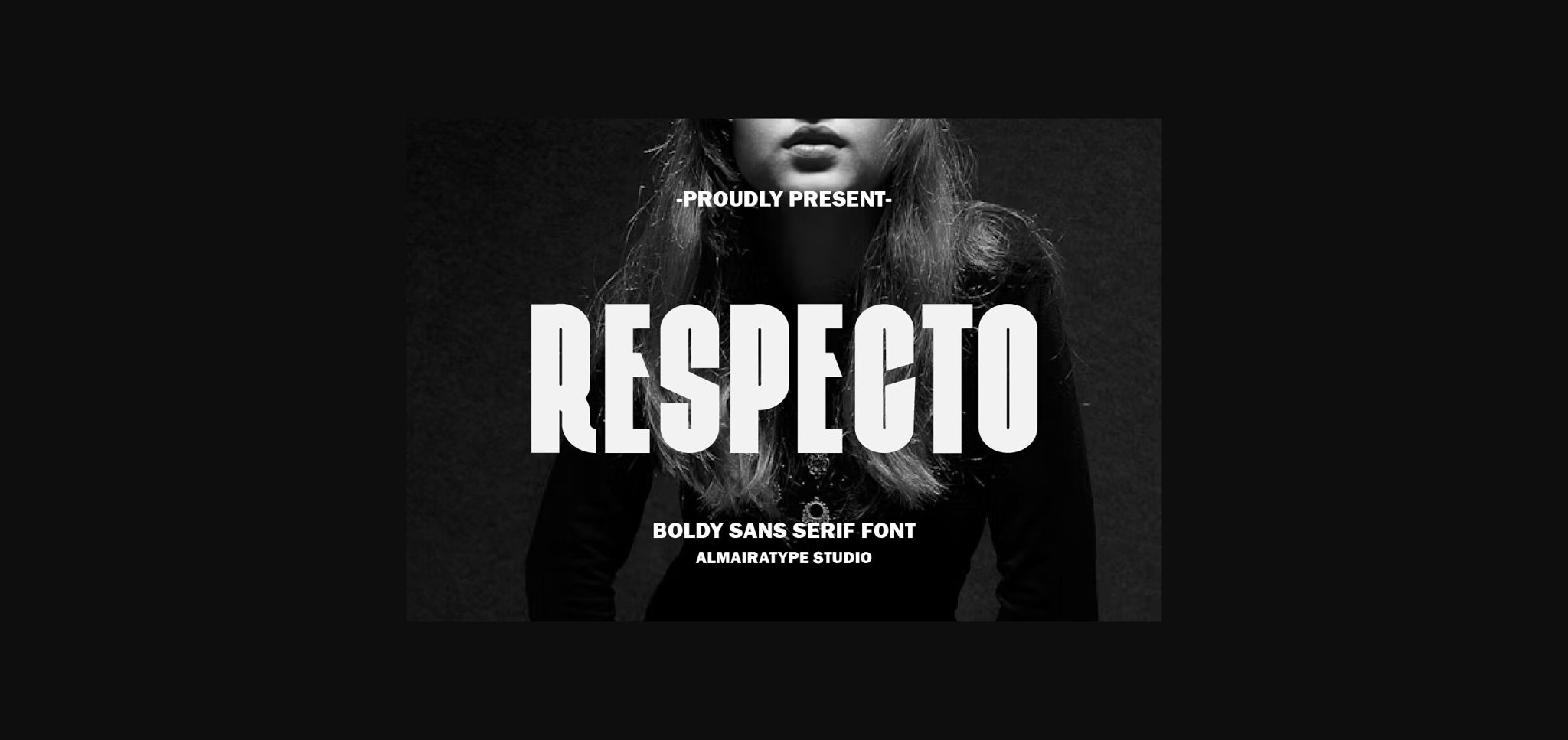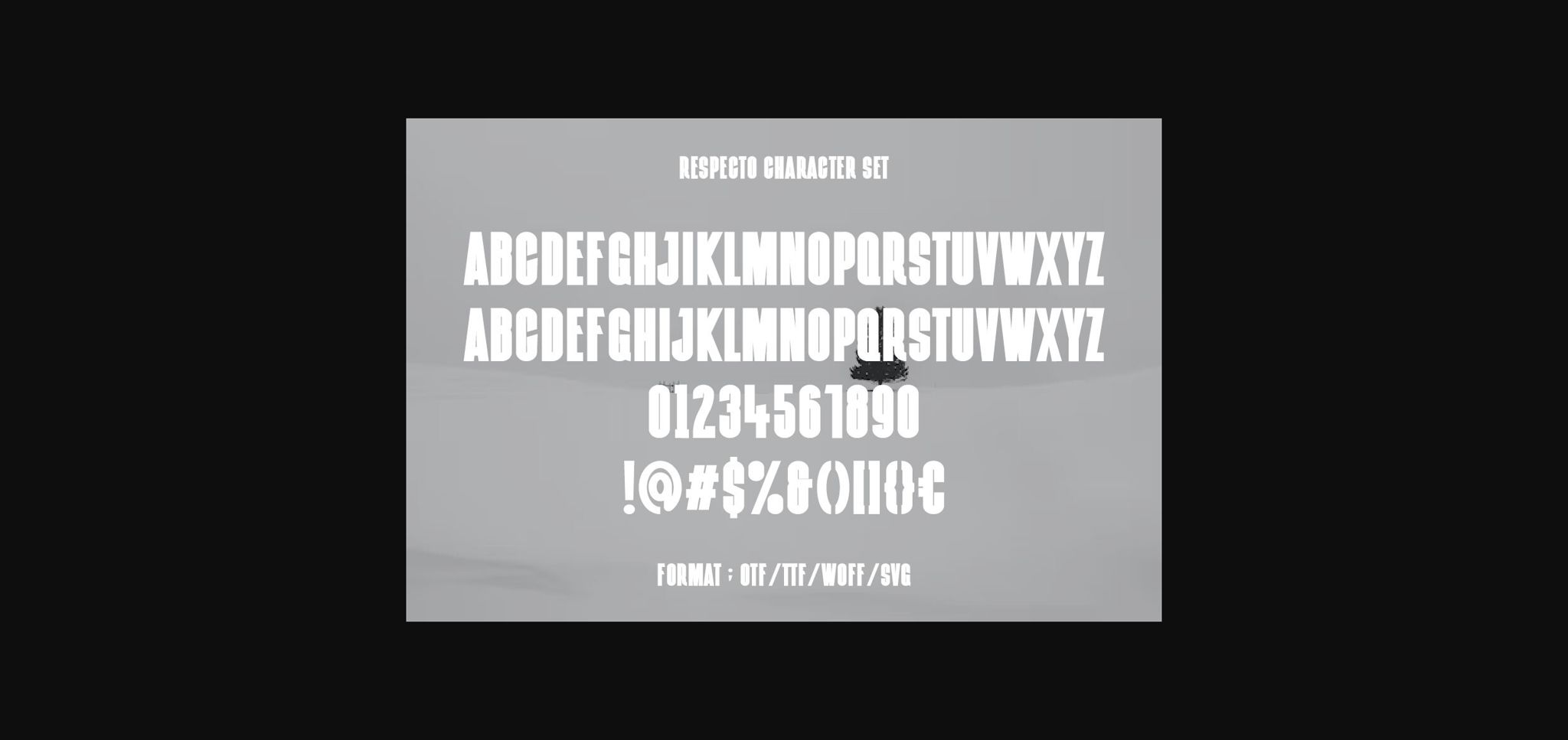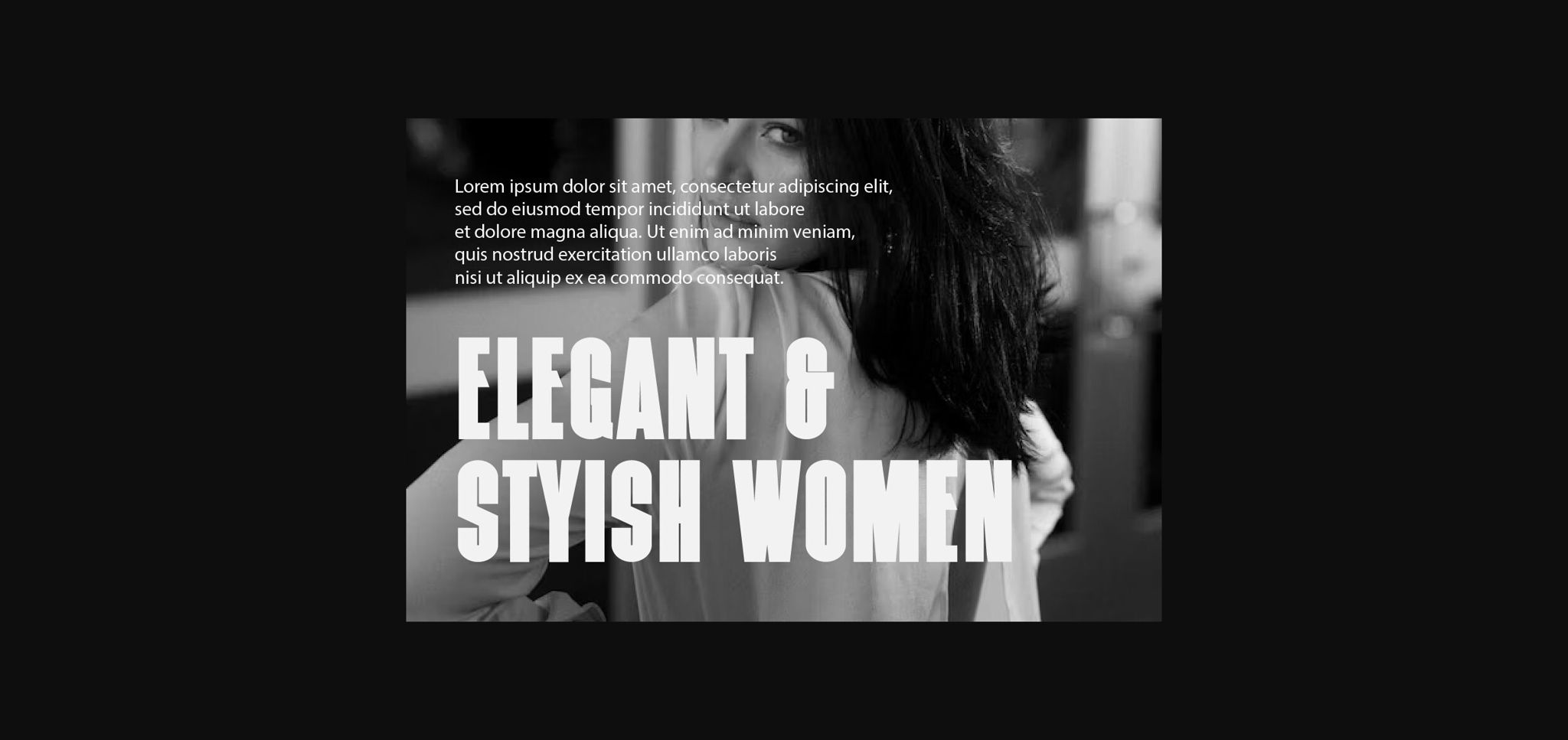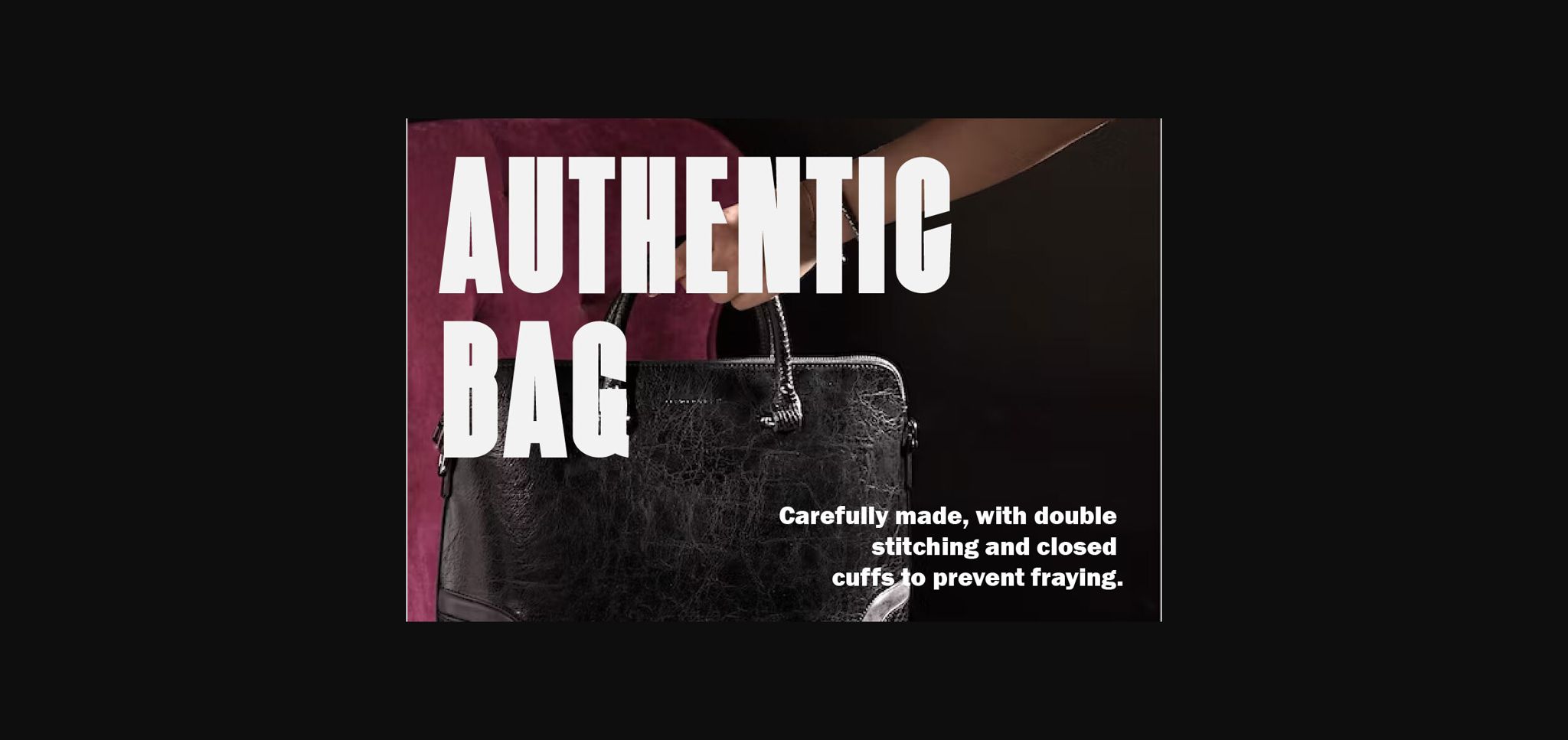
About Respecto Font
Respecto is a bold and stunning sans serif font with a vintage style. It is suitable for perfecting your creative projects such as t-shirts, labels, logos, web, branding, business, book covers, magazines, pamphlets, flyers, music albums, vinyl, and many other ideas.